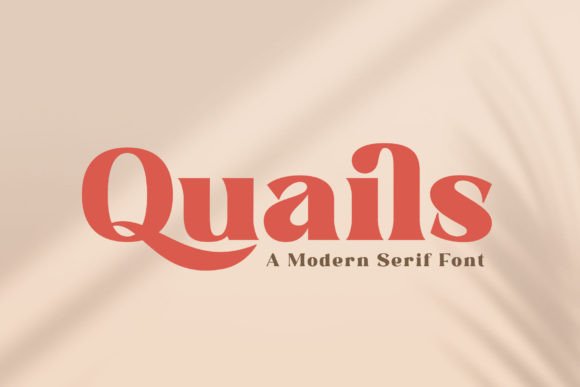
Behold, Quails, the Exuberant Serif Font, a Bold New Vision for Business Communication!
Unleash the captivating grace of Quails, the modern serif font that radiates boldness and assertion. Step into a world of sophisticated typography and watch your business soar to new heights. Crafted with meticulous precision by the visionary designers at Madatype Studio, Quails embodies the essence of distinction and command.
At a Glance:
- Unparalleled Boldness: Quails embraces a brazen and unapologetic personality that will make your designs stand out from the crowd. It demands attention without ever sacrificing grace.
- Business Savvy: With its innate understanding of business communication, Quails exudes competence and confidence. Elevate your presentations, reports, and marketing materials to the pinnacle of professionalism.
- Transformative Power: Quails possesses the extraordinary ability to transform ordinary text into visually delightful masterpieces. Experience the magic as it elevates the mundane into the extraordinary.
- Boundless Versatility: No matter your industry or design style, Quails adapts seamlessly to any task. From sleek corporate flyers to enchanting wedding invitations, this font knows no limits.
- Visual Feast: Quails tantalizes the eyes with its delectable character set, featuring refined serifs and elegant curves. Prepare to captivate your audience with its inherent beauty.